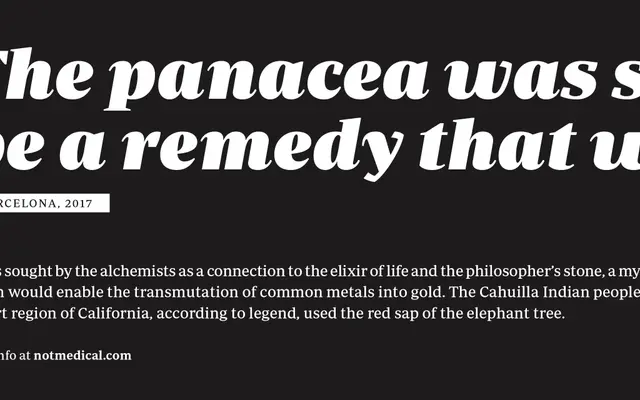
Periódico
Originally commissioned by Spanish daily newspaper ABC, this 30-style family draws on 18th-century Spanish typographic engravings without directly reviving any single model.
Built from scratch rather than as a revival, the family takes 18th-century Spanish engraving as a starting point for a distinctive yet functional newspaper face. Thirty styles split across Text and Display subfamilies cover five weights from Light to Bold in Text, and nine weights from Thin to UltraBlack in Display, each with italics. The family has since appeared in editorial contexts ranging from USPS stamps to Wired magazine.
Designed with reference to 18th-century Spanish typographic engravings, the family shares the high contrast and calligraphic underpinning typical of transitional serifs, split across dedicated text and display optical sizes.